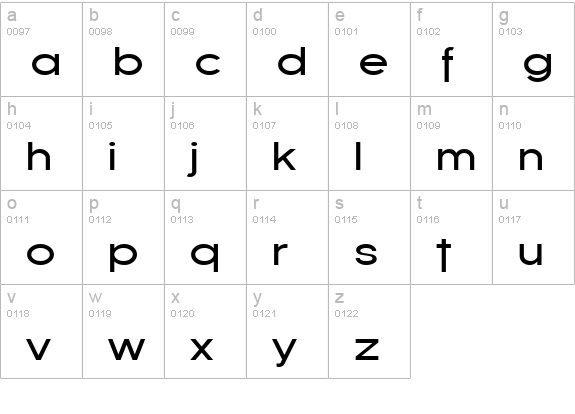
Florencesans Exp Font Details
Florencesans Exp is a modern and stylish sans-serif font designed to bring a touch of elegance to your projects. With its sleek lines and graceful curves, this font is perfect for creating sophisticated designs that demand attention. Whether you're designing a logo, branding materials, or website graphics, Florencesans Exp will add a touch of class to your work. The best part? Florencesans Exp is completely free to download at FontsMarket.com. This means you can access this stunning font without breaking the bank, making it a valuable addition to your font collection. So go ahead and elevate your designs with Florencesans Exp today!